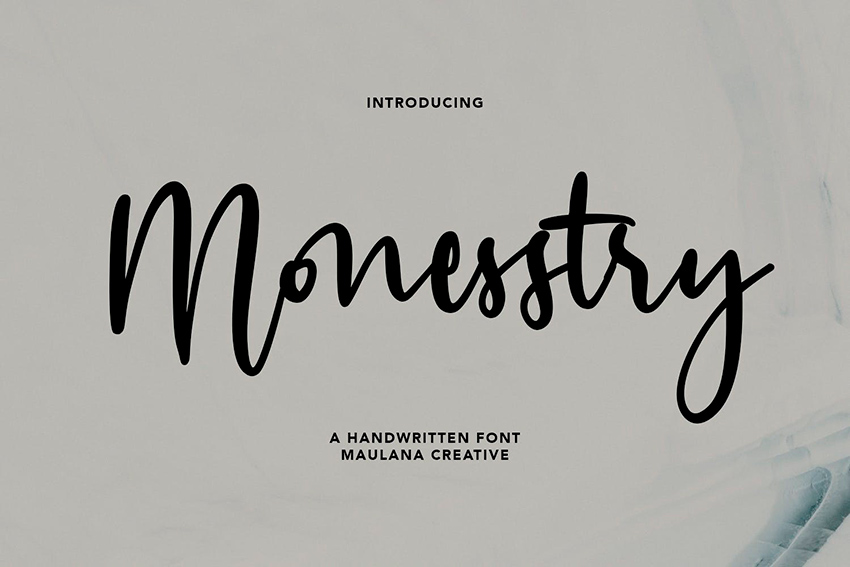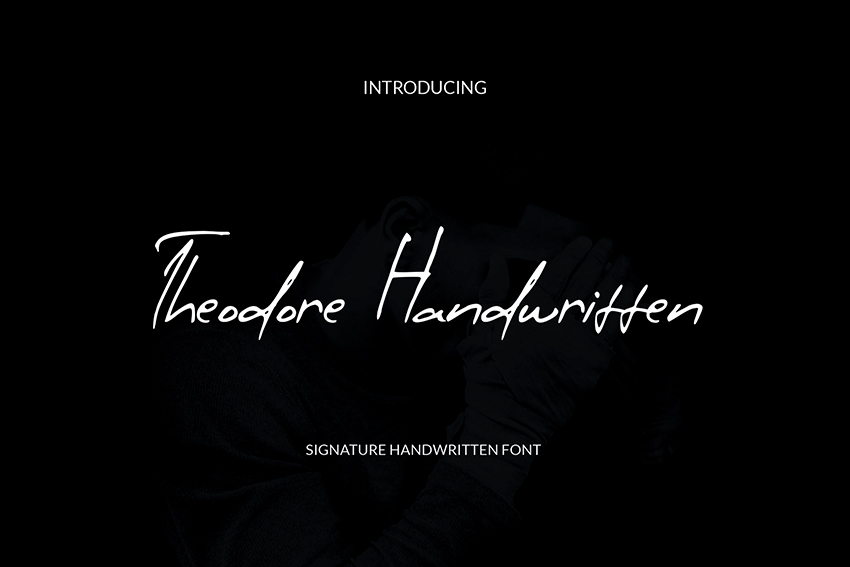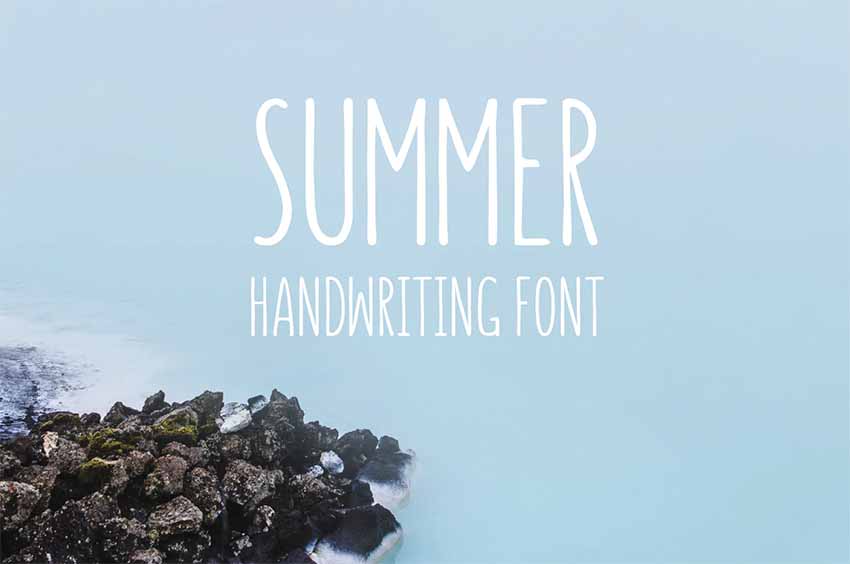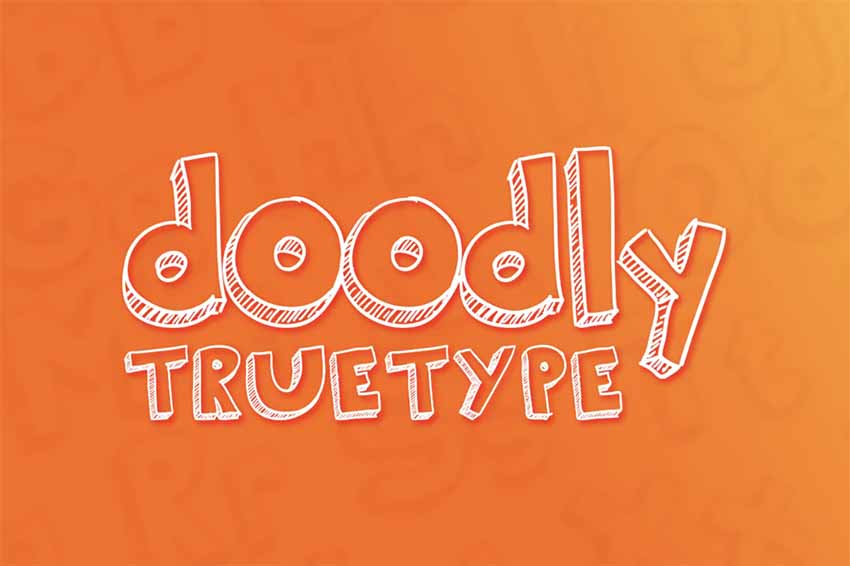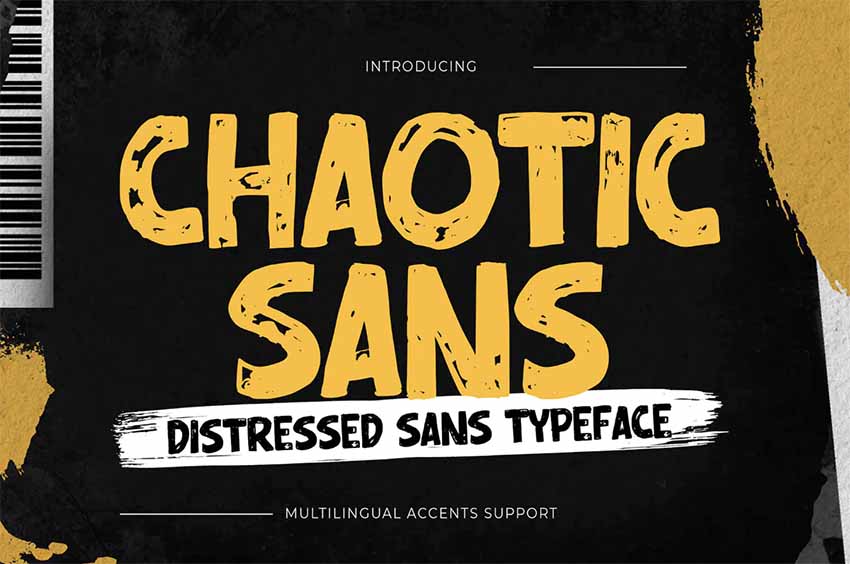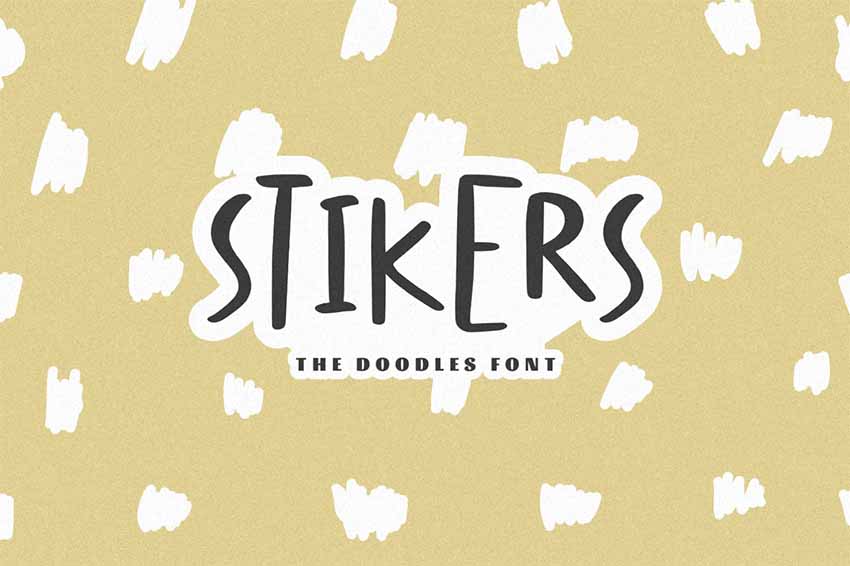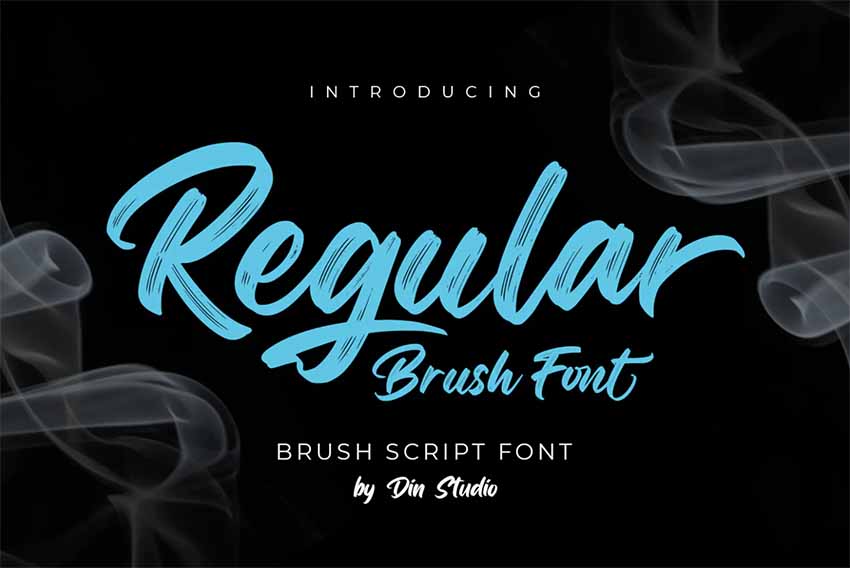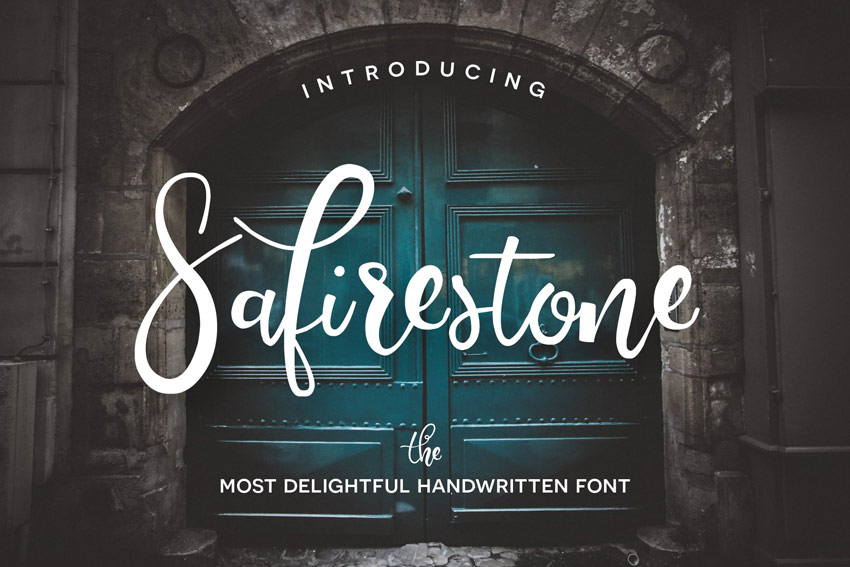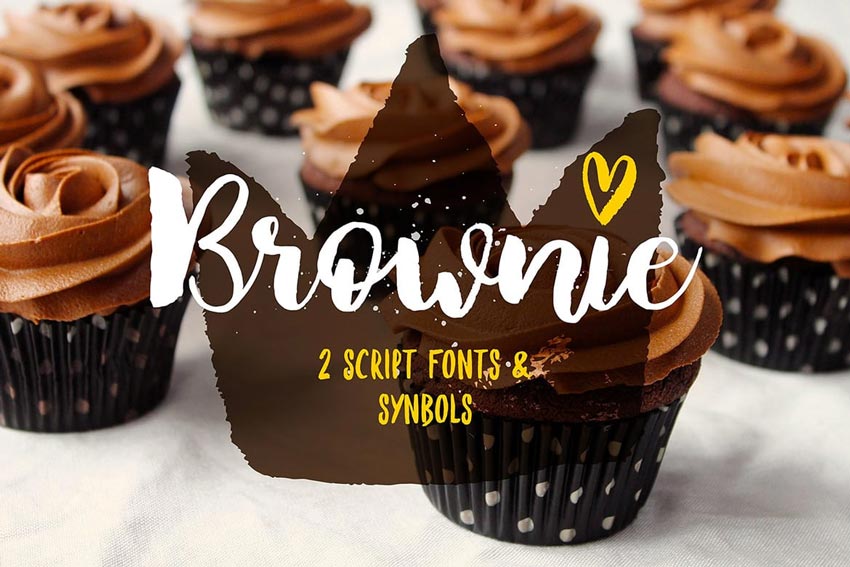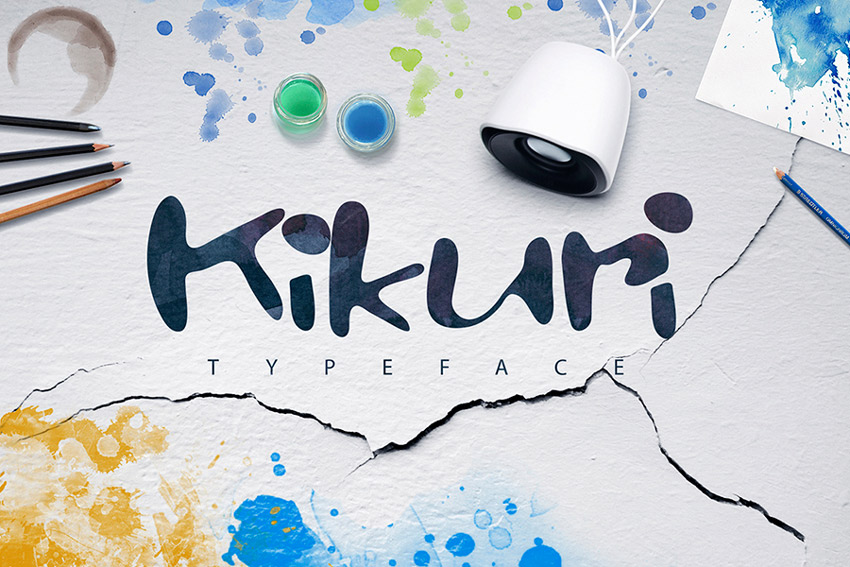
30 Best Handwritten Fonts
This collection of incredible premium assets features 30 handwritten fonts you'll want to download today!
Are you looking for the coolest handwritten script fonts? Envato Elements is the best place to go.
30 Best Handwritten Fonts
1. Monesstry Aesthetic Handwritten Fonts (OTF, TTF)
Monesstry Aesthetic Handwritten Fonts
We begin with an elegant handwritten script font. Monesstry Aesthetic Handwritten Fonts is one of our newest handwritten calligraphy fonts, and it looks great on creative projects. This handwritten script font has clean strokes and a fun character. It comes with ligatures and multilingual support. Try it today!
2. Kikuri Creative Font Letters (OTF, TTF)
Kikuri Creative Font Letters
Explore your creative side with this unique handwritten brush font. Kikuri Creative Font Letters features 100% vector elements that can be resized without any loss of resolution. It's designed with beautiful rounded letters, and you'll enjoy incorporating this font into any creative project.
3. Handster Handmade Font (TTF)
Handster Handmade Font
A handwritten font crafted with love, the Handster Handmade Font features casually written letters with rough edges. Perfect for that imperfect look, this package includes all the essential characters you need to complete your designs.
4. Kalista Unique Handwriting Fonts (OTF, TTF)
Kalista Unique Handwriting Fonts
Create exciting designs with the unique Kalista typeface. Kalista Unique Handwriting Fonts was created to illustrate that authentic handcrafted feel with loopy curves and rough lines. It's perfectly suited for stationery and more! Download this file to get access to both regular and alternate versions.
5. Lote Santos Fun Handwritten Fonts (OTF, TTF)
Lote Santos Fun Handwritten Fonts
The chalkboard aesthetic is all the rage in the graphic design industry today. And you can incorporate that authentic handwritten feel with the Lote Santos Fun Handwritten Fonts. This handwritten brush font features a full set of letters, numbers, and punctuation to cover all your design needs.
6. Montclar Handwritten Print Font (OTF, TTF, WOFF)
Montclar Handwritten Print Font
The embodiment of style and sophistication, Montclar Handwritten Print Font features tall, elegant letters perfect for restaurant menus. Included in this package are Latin and Cyrillic characters with everything you need to create exceptional designs.
7. Brook Popular Handwritten Fonts (OTF, TTF, WOFF)
Brook Popular Handwritten Fonts
Create exciting book covers and more with this simple handwritten font. Handcrafted with tall uppercase letters, Brook Popular Handwritten Fonts features four different weights you can experiment with to complete your designs.
8. Celestial Font (OTF, TTF, WOFF)
Celestial Font
Design posters that are simply out of this world with the unique Celestial font. A handwritten brush font that features chunky brush strokes and an imperfect baseline, this font is perfect for holiday cards, posters, and so much more!
9. Jacks Handmade Font (OTF)
Jacks Font
An incredible font duo that features both handwritten serif fonts and sans serif font versions, this typeface includes all the characters you need to create exciting designs. It's suitable for blog posts, quotes, and more! The possibilities are limitless with this great typeface.
10. BigMom Handmade Font Duo (OTF)
BigMom Font Duo
Even moms should get their own typeface! This fun display handwritten marker font features a casual aesthetic full of charm. Incorporate this font into your craft projects or create an inspiring poster with your favorite quotes.
11. Safirestone Creative Font Letters (OTF, TTF, WOFF)
Safirestone Creative Font Letters
Looking for the best handwritten calligraphy fonts? Safirestone Creative Font Letters is guaranteed to make your designs pop! Featuring fat-to-thin brush strokes and a bouncy baseline, this typeface is sure to add a bit of fun to your designs. Download this file to get access to all the characters you need, along with a bonus of over 100 extra glyphs.
12. Akula Handwritten Logo Fonts (OTF, TTF, WOFF)
Akula Handwritten Logo Fonts
Explore this incredible dry brush style with the Akula Handwritten Logo Fonts. Created using hand-drawn letters in a wet brush style, this handwritten brush font package includes a full set of letters, numbers, and punctuation for your convenience.
13. Nomad Font (OTF, TTF, WOFF)
Nomad Font
30. Stikers Handwriting Font (TTF)
Stikers Handwriting Font
Stikers Handwriting Font features casually styled handwritten letters. Included in this package are all the uppercase and lowercase letters you need, as well as a full set of numbers and punctuation.
Choose Your Favorite Handwritten Font Today